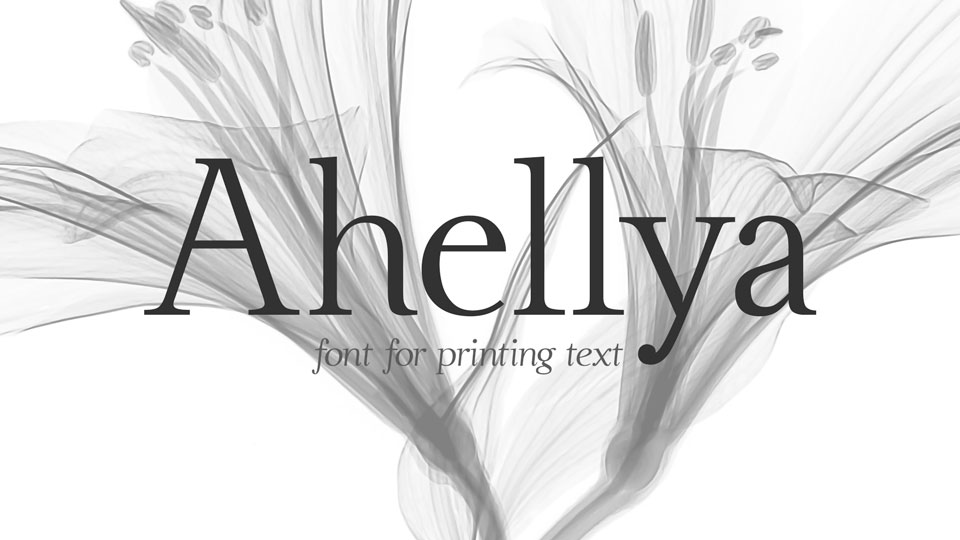
Download Ahellya typeface, an elegant serif font family in two styles for printing texts. Ahellya works great for books, magazines, suitable for wedding and greeting designs, social media and more.
Designer: Dmitry Barsukov